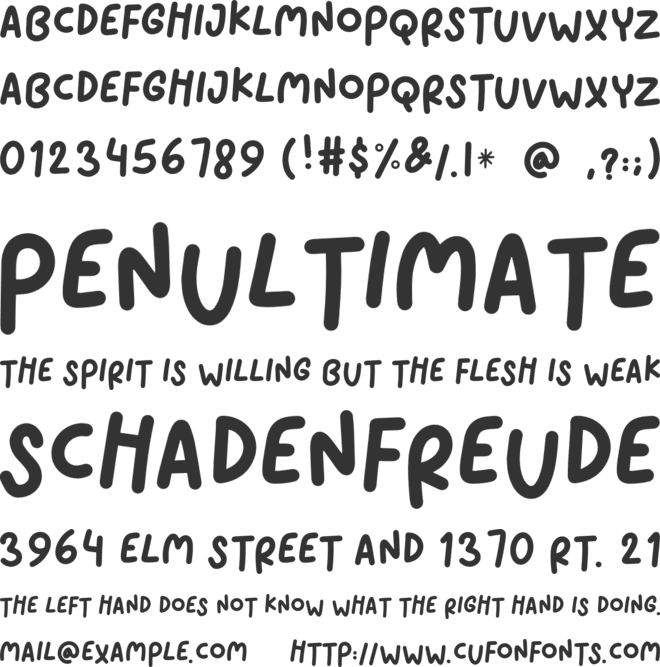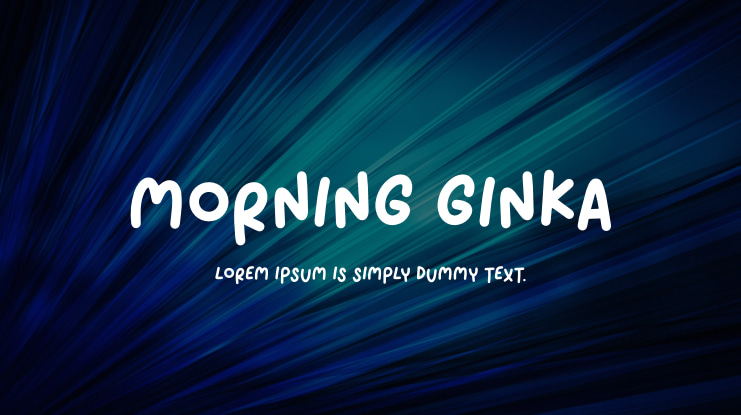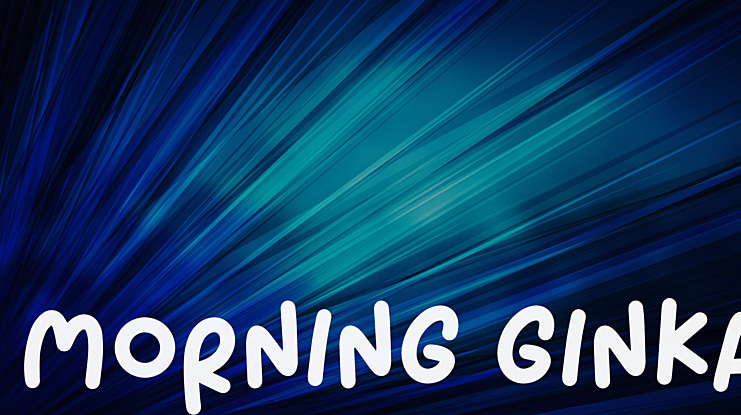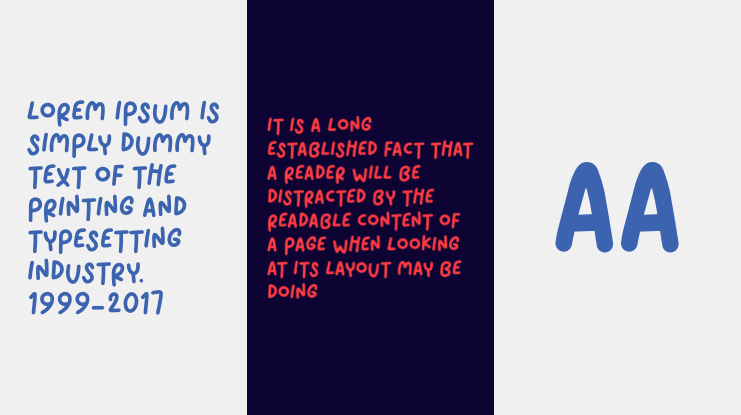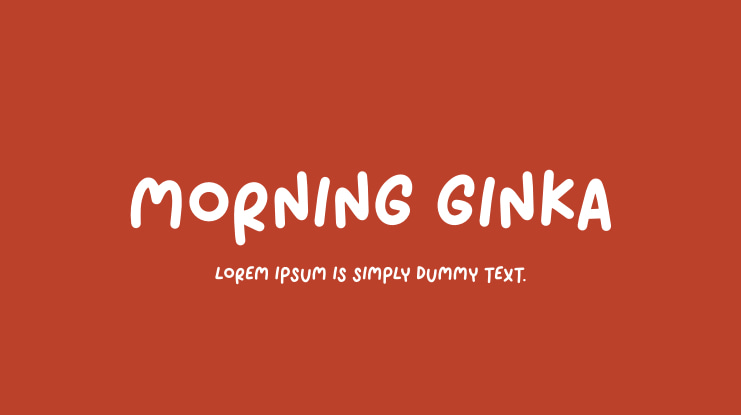
Morning Ginka Font
Morning Ginka is a playful and casual handwritten font. It’s perfect for various whimsical designs, logos, greeting cards, quotes, and much more. It will look outstanding in a wide range of contexts.